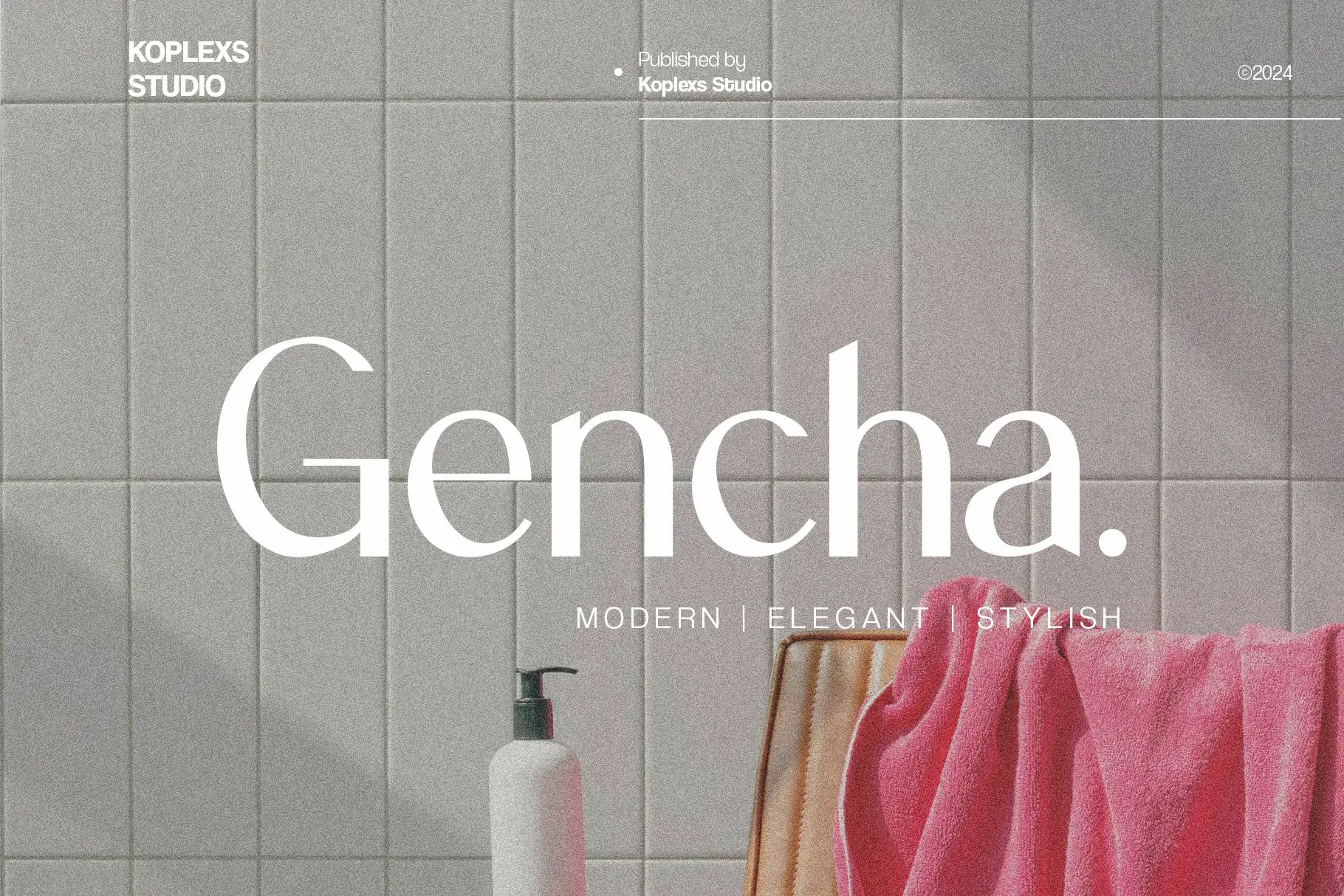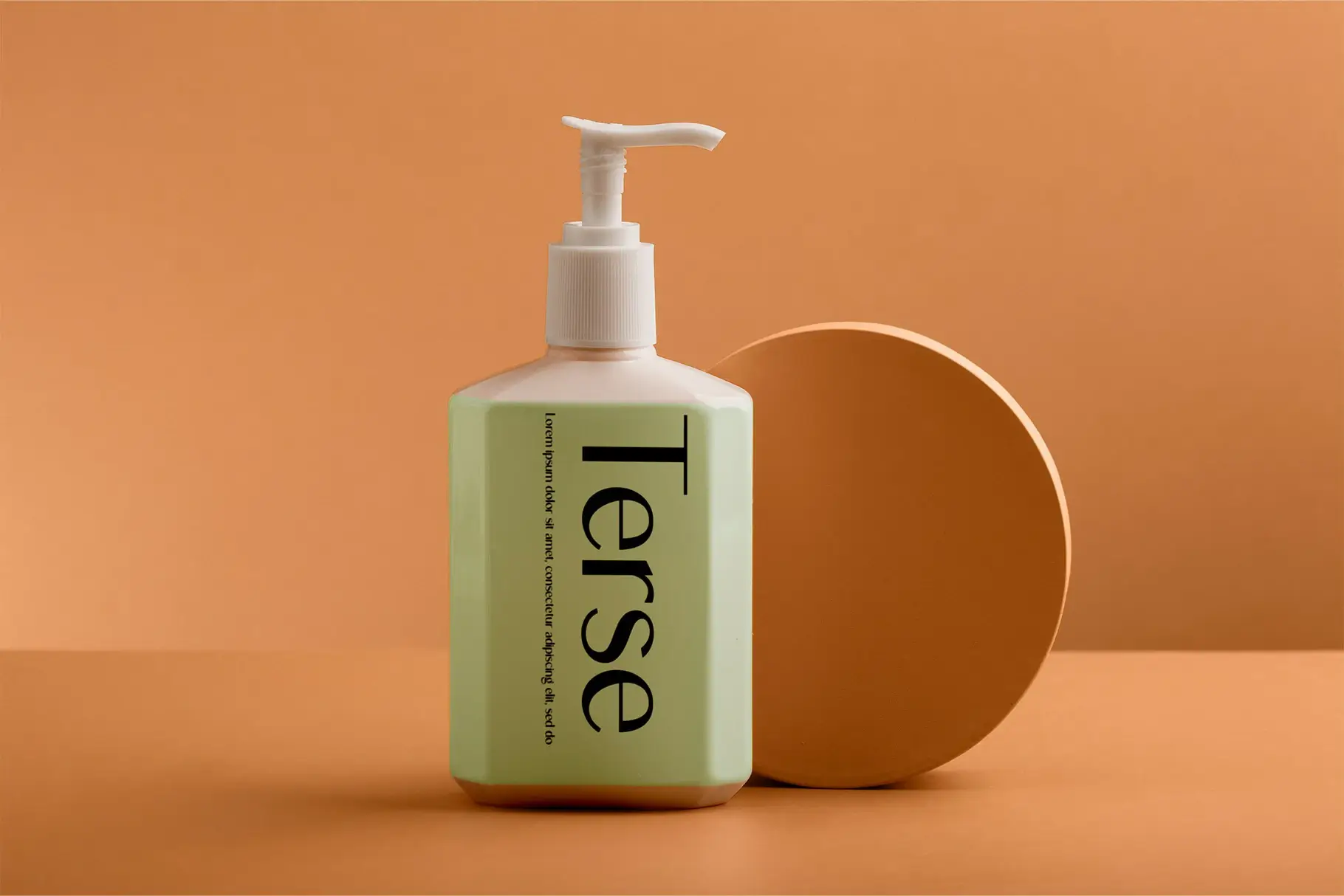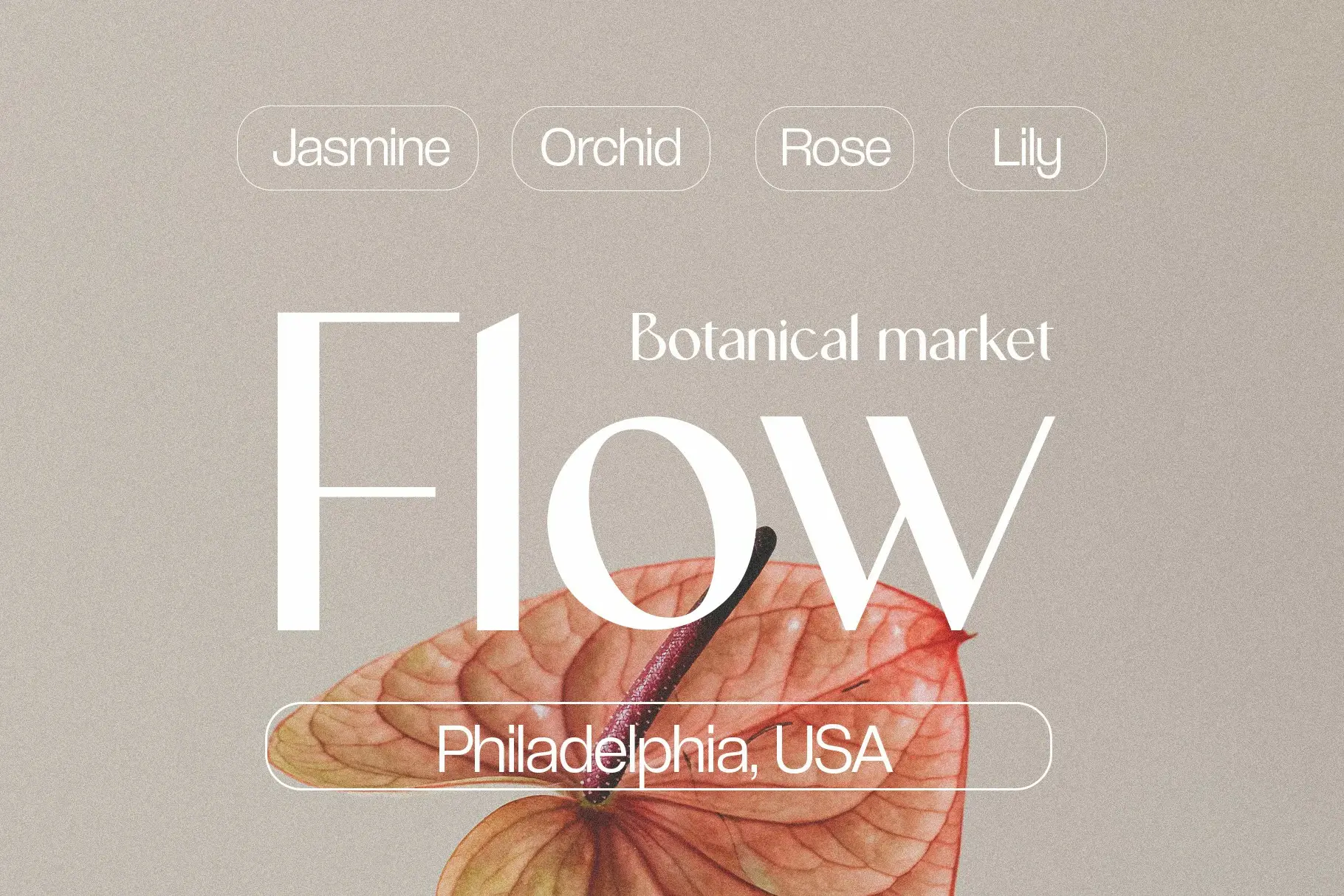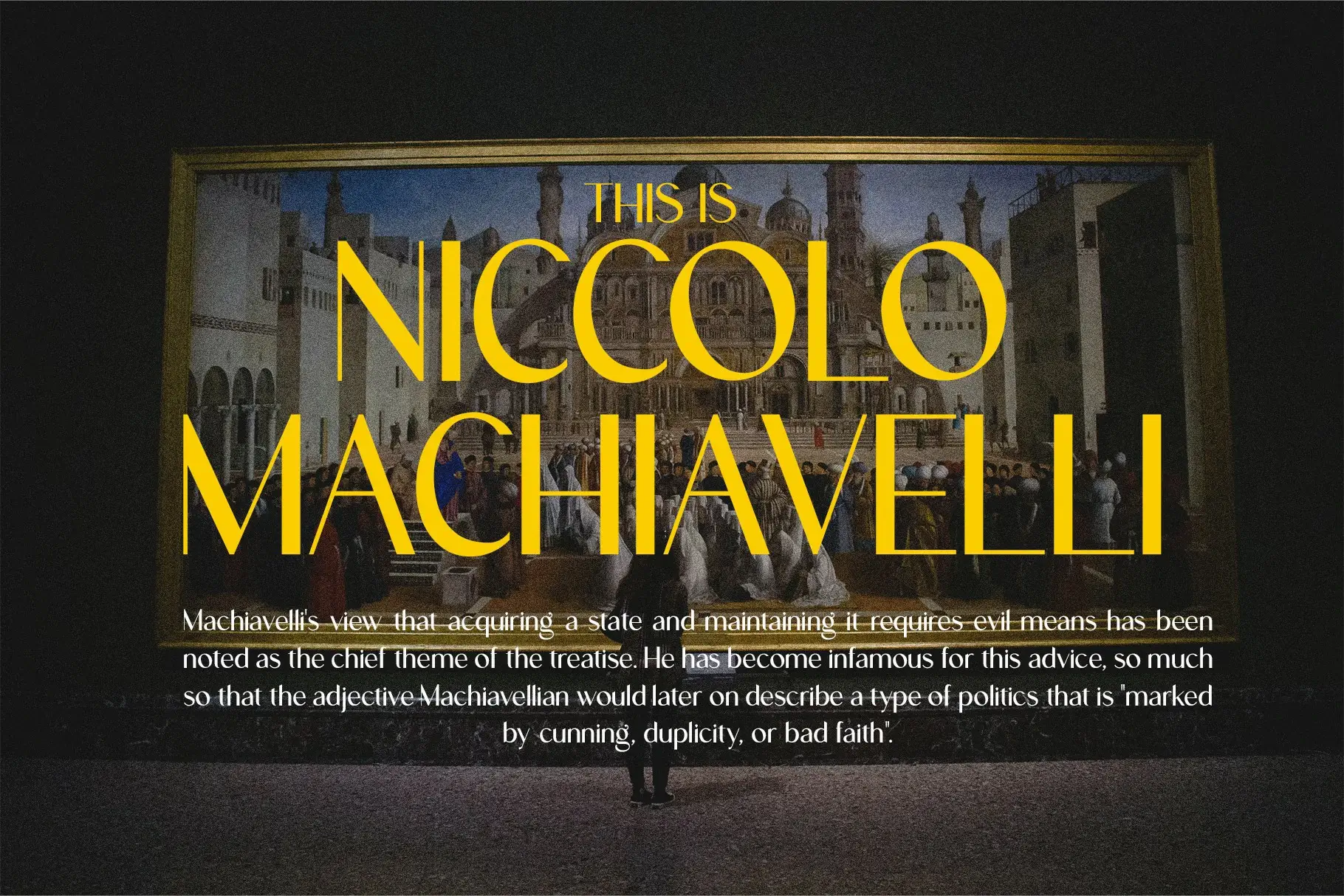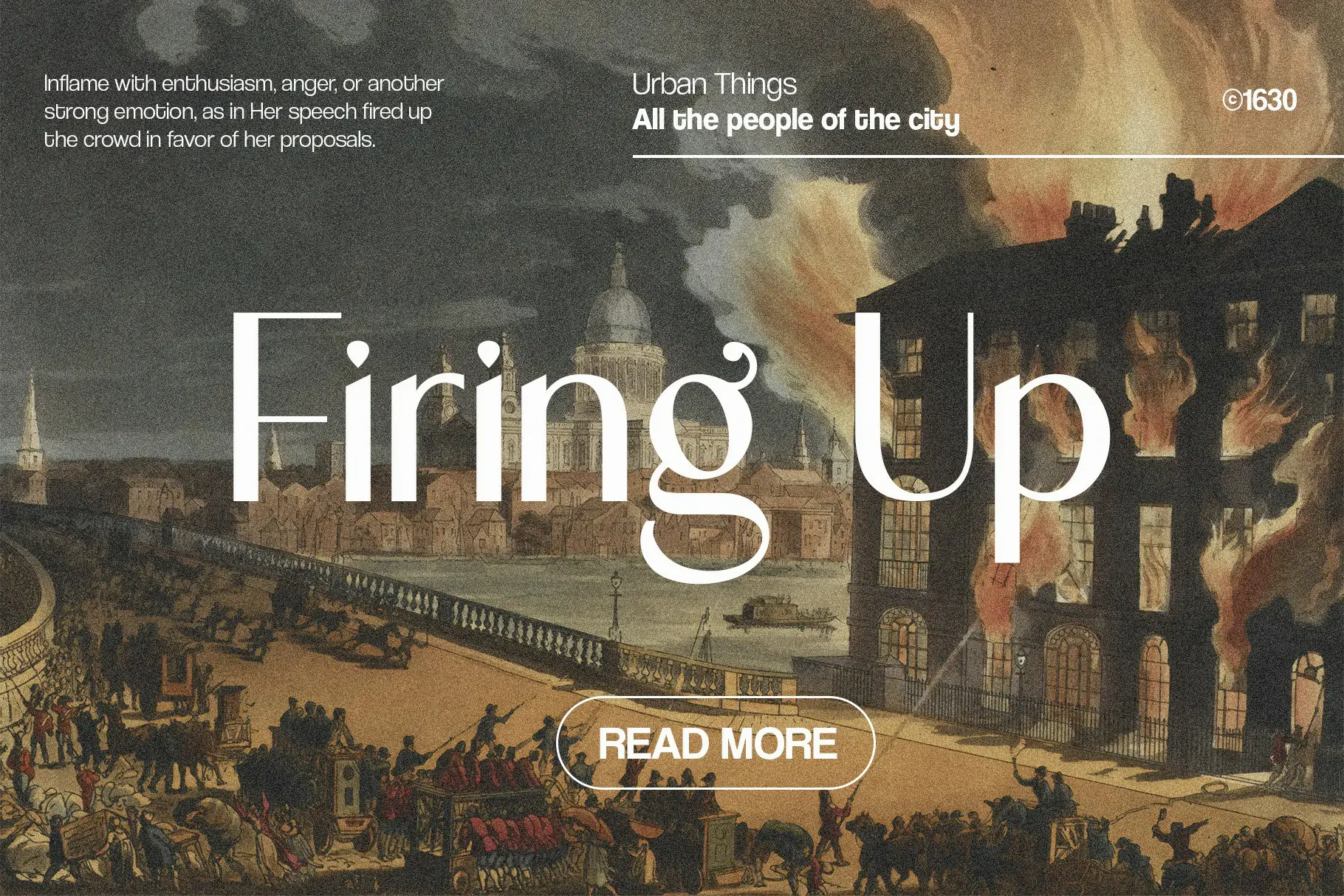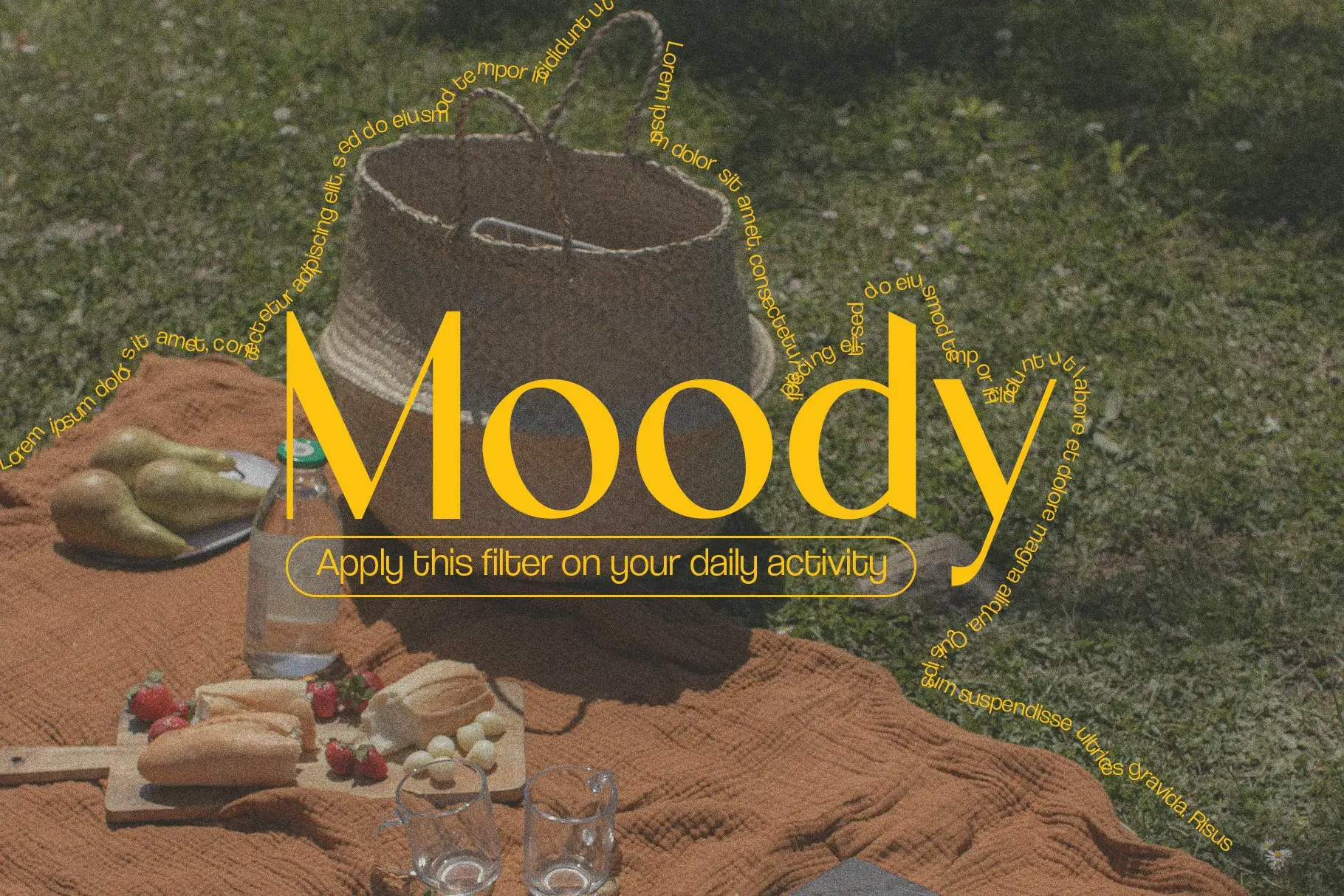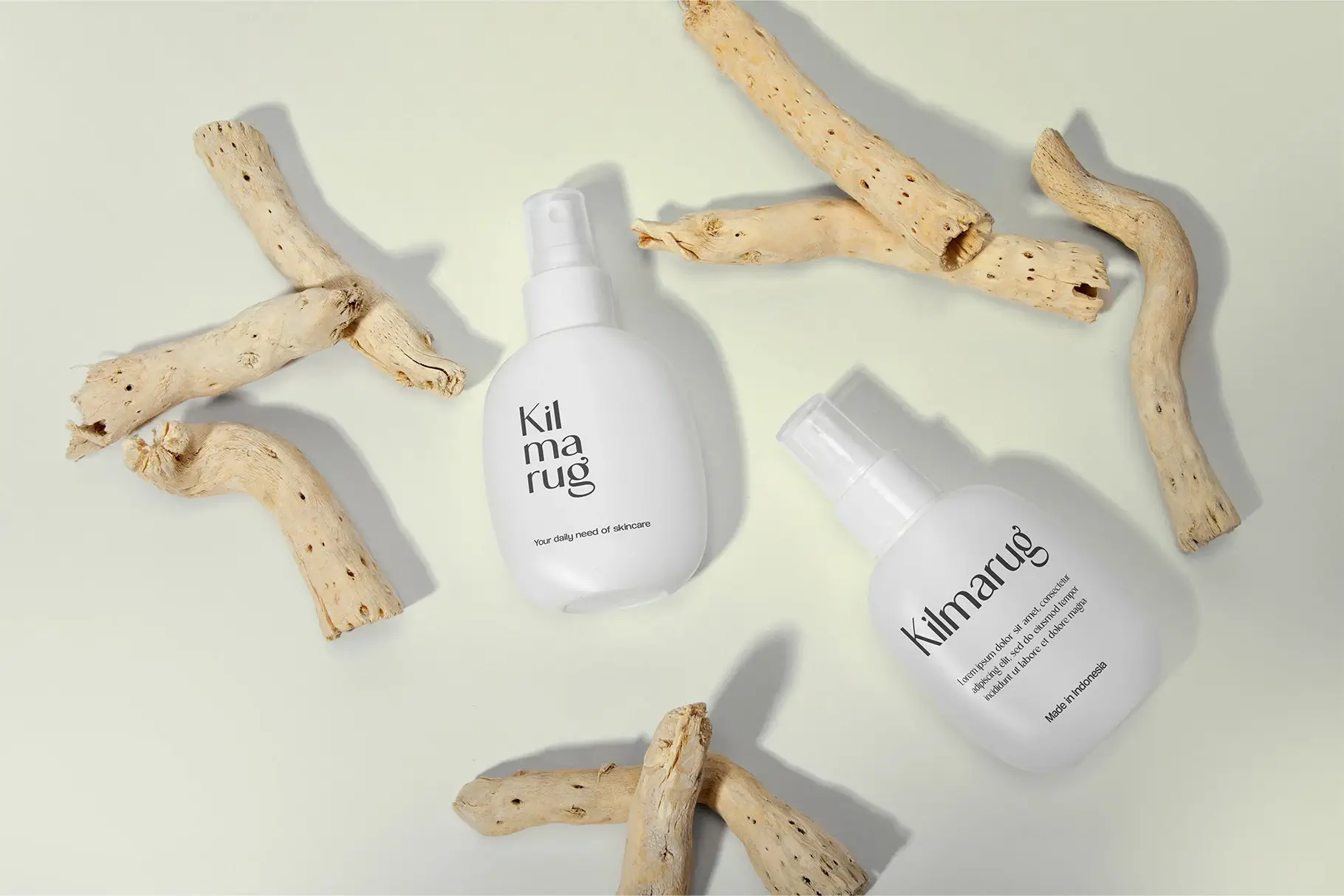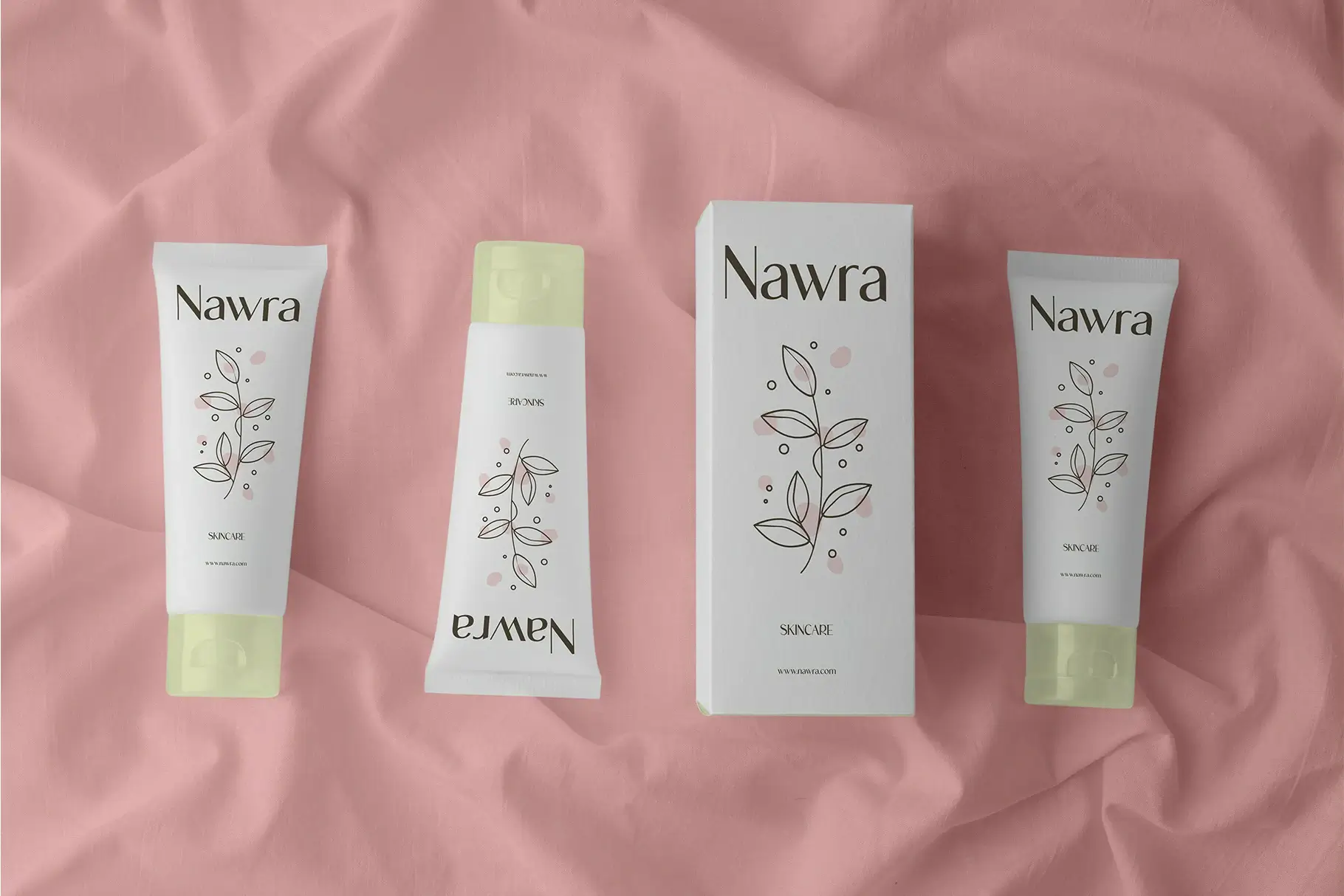
Gencha Font
Gencha Font is a modern serif font with clean elegance and minimalist character. With Regular and Italic styles, it’s ideal for branding, packaging, and editorial design.
Gencha Font
Gencha Font is a clean, modern serif typeface that perfectly balances minimalism with expressive charm. Designed for creatives who demand clarity, elegance, and contemporary aesthetics, Gencha stands out in both high-end and everyday design work.
Available in Regular and Italic, Gencha offers subtle sophistication for branding, editorial layouts, packaging, and more. Each letterform is crafted with precision, maintaining legibility while injecting style through sharp transitions, curved terminals, and sleek serif detailing.
As a modern serif font, Gencha was created with versatility in mind. Whether you’re working on a minimalist skincare label, a luxury perfume box, or a stylish magazine layout, Gencha adapts effortlessly—elevating designs with its refined silhouette and confident presence.
What sets Gencha apart is its unique blend of modern minimalism and timeless elegance. The font avoids ornamental excess while still commanding attention with its sculpted shapes and clear hierarchy. The italic version flows with grace and personality, making it ideal for quotes, taglines, or elegant subtext.
Gencha Font Key Features:
• Two styles: Regular and Italic
• Full set of uppercase & lowercase letters
• Numbers, punctuation & multilingual support
• Perfect for both display and small-size text
Why Choose Gencha Font?
🔹 Minimalist Font for Modern Branding
Simplicity is power. Gencha’s sleek, clean strokes make it a go-to choice for minimalist brands—particularly those in fashion, wellness, beauty, or design-forward industries.
🔹 Elegant Font with Editorial Style
Gencha feels right at home in high-end publications. Its sharp serifs and elegant forms bring a sense of order and class to editorial headlines, magazine layouts, and book titles.
🔹 A Font for Packaging That Converts
Stand out on the shelf. Gencha’s professional, clean style enhances product packaging—from skincare and cosmetics to premium beverages and lifestyle goods.
🔹 Perfect for Brand Identity Design
Consistency and style go hand in branding. Gencha delivers a visual tone that is confident, graceful, and modern—ideal for logos, business cards, and web typography.
Gencha Font Best Uses:
• Product packaging (cosmetics, skincare, perfumes)
• Editorials & magazines
• Logos & visual identities
• Fashion branding
• High-end websites & social media templates
• Modern wedding invitations
• Startup and portfolio presentations
Whether you’re designing a new skincare brand or laying out a fashion zine, Gencha Font offers the clarity, elegance, and style that make your work stand out—without saying a word too loud.